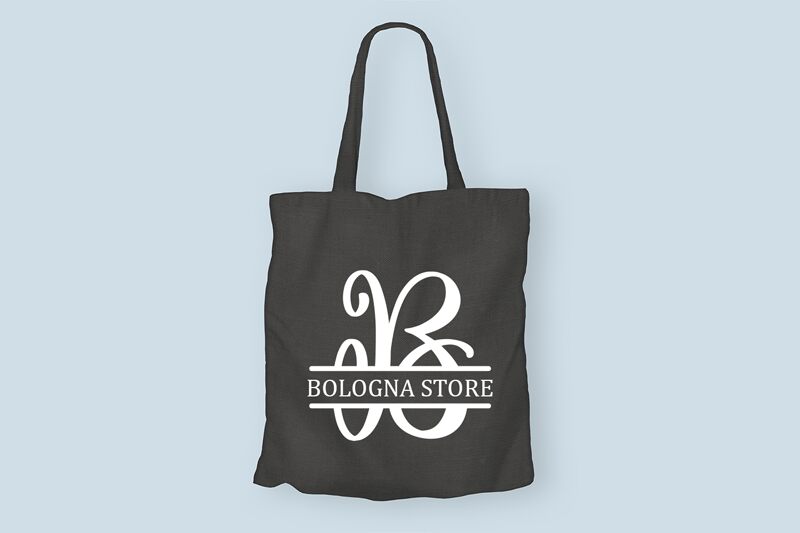
Vase Monogram font by Abo Daniel Studio is a fancy free font that combines art and text to captivate attention. Its refined and luxurious appearance reflects its elegant and sophisticated influence. Its incredible balance masked by the variability in the design allows its users to accomplish a fascinating artistic output within seconds. Whatever the purpose of usage it brilliantly completes any mission.
VASE MONOGRAM
a cute monogram font.